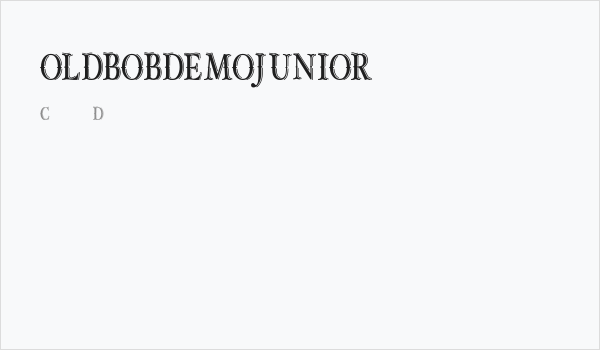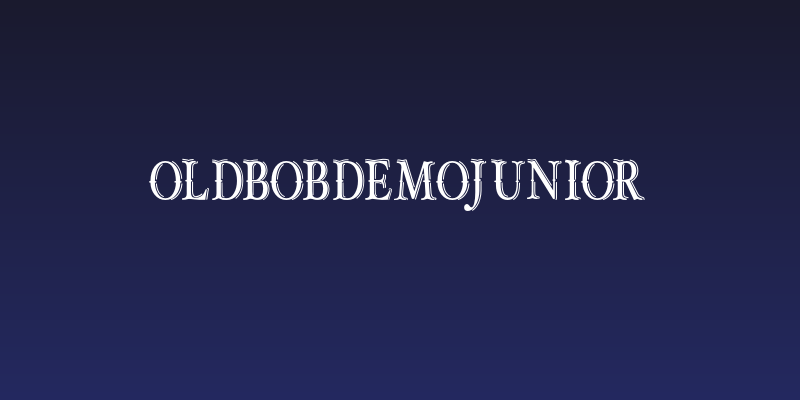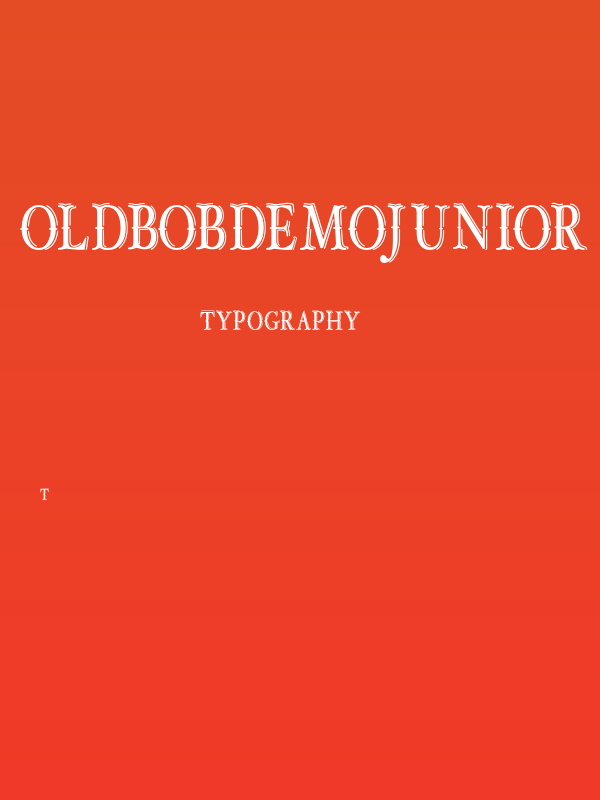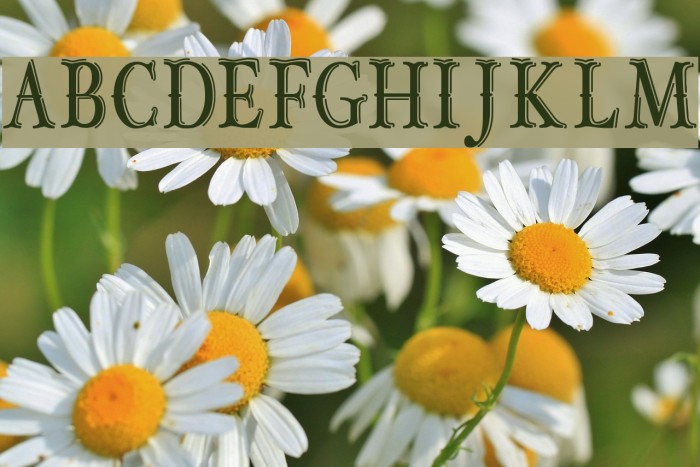
OLDBOBDEMOJUNIOR Font
OLDBOBDEMOJUNIOR Description
This font features a bold and decorative style with a vintage flair. The characters are designed with intricate detailing, including shadowed outlines that give a three-dimensional effect. The serifs are pronounced, adding to the classic and ornamental appearance. Each letter maintains a consistent height and width, contributing to a uniform and structured look. The overall design is reminiscent of traditional signage or posters, making it suitable for projects that require a touch of elegance and nostalgia.
| Proposed Projects | Ideal for vintage-themed posters, signage, book covers, and branding projects that require a classic and ornamental touch. |